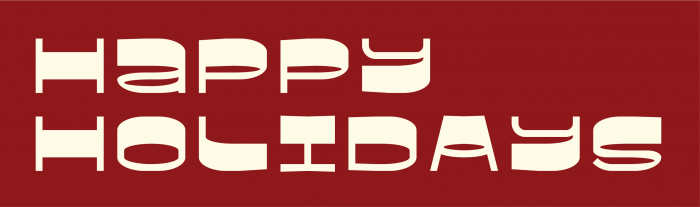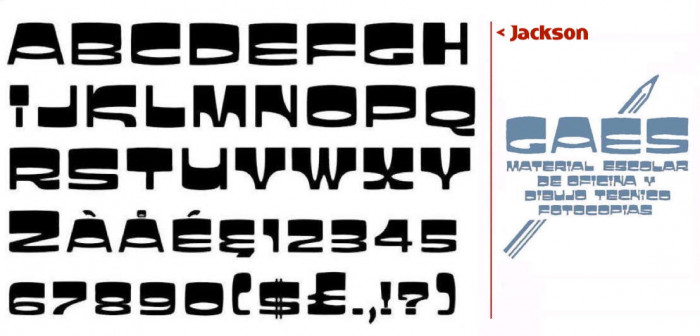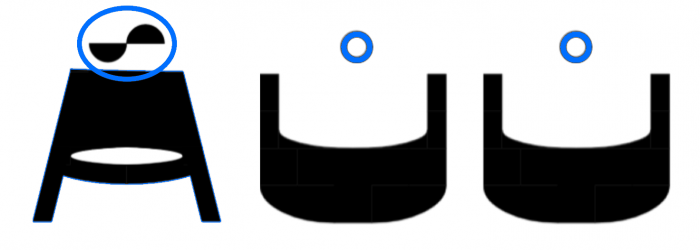
I really love this font! The inspiration in Jackson brings back memories of years gone by (I'm adding a sample of an old stationery store job I used it in). My only "but" is that the accent on the A is mirrored and the little circles on the U are missing. 10/10 for you and best wishes for these Christmas days, compañero!
Thats quite a "kuif" u got there. Wonderful reverse contrast font and a true peak into rhe realms of woodtypes.
rly nailed the jackson style
I really love this font! The inspiration in Jackson brings back memories of years gone by (I'm adding a sample of an old stationery store job I used it in). My only "but" is that the accent on the A is mirrored and the little circles on the U are missing. 10/10 for you and best wishes for these Christmas days, compañero!